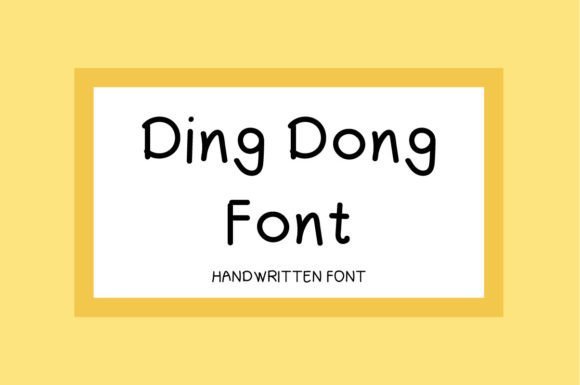
The Perfect Harmony of Style and Substance: Introducing Ding Dong Font
There’s something magical about the moment when a design comes together – a symphony of colors, shapes, and textures that transport you to a world of pure creativity. As you sit at your desk, pen in hand, or fingers hovering over the keyboard, you’re on the cusp of bringing your vision to life. But what elevates your design from mere mortal to masterpiece?
Enter the Ding Dong Font, a stylish handwritten font that not only adds a personal touch but also includes special characters å, ä, and ö, making it versatile for various languages and creative designs. This font is a game-changer for designers seeking to add a unique flair to their text, whether it’s for a project or simply expressing themselves. With the Ding Dong Font, the possibilities are endless, and the results are nothing short of stunning.
Ding Dong Font Key Features
- Font Family: Ding Dong is a display font designed for use in digital and print media, including signage, wayfinding, and branding applications.
- Font Size and Resolution: Ding Dong is designed for use at large sizes, typically 24pt and above, and is optimized for high-resolution displays (retina-ready).
- Unique Characteristics: Ding Dong features a playful, dynamic design with exaggerated letterforms and a distinctive “ding-dong” sound effect, making it perfect for applications where a bold, attention-grabbing font is required.
- Language Support: Ding Dong supports a wide range of languages, including Latin, Greek, and Cyrillic scripts.
Ding Dong Font Review
I recently had the chance to work with the Ding Dong font, and here’s my honest review.
- Unique Personality: Ding Dong has a playful and quirky personality that can add a lot of character to a design. It’s perfect for brands that want to stand out and have a bit of fun.
- Customization Options: The font has a range of customization options, including font sizes, line heights, and colors, which makes it easy to adapt to different design contexts.
- Legibility: Despite its quirky nature, Ding Dong is still easy to read, even at smaller font sizes.
- Overuse Potential: With its unique personality, there’s a risk of overusing the font and making it feel gimmicky. It’s essential to use it judiciously and balance it with other fonts.
- Limited Versatility: While Ding Dong is perfect for playful designs, it may not be the best choice for more serious or formal projects.
Overall, I think Ding Dong is a great addition to any designer’s toolkit. While it has some limitations, its unique personality and customization options make it a versatile and fun font to work with.
Ding Dong Font is a great choice for adding a playful and whimsical touch to your designs. It’s commonly used in children’s book illustrations, party invitations, and advertising materials. To get the most out of the font, use it in combination with bold colors and creative typography. Experiment with different font sizes and styles to create a unique and eye-catching design.